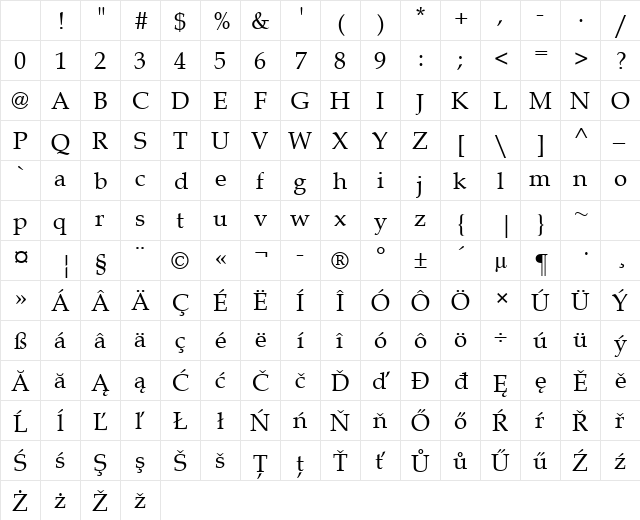
Book Antiqua CE Regular
Design Context for Book Antiqua CE
Book Antiqua CE is a composed and adaptable typeface that performs quietly and consistently across a wide range of design contexts.
Pro Tip: Use Book Antiqua CE in both headline and body roles to test its range before committing to a single application.